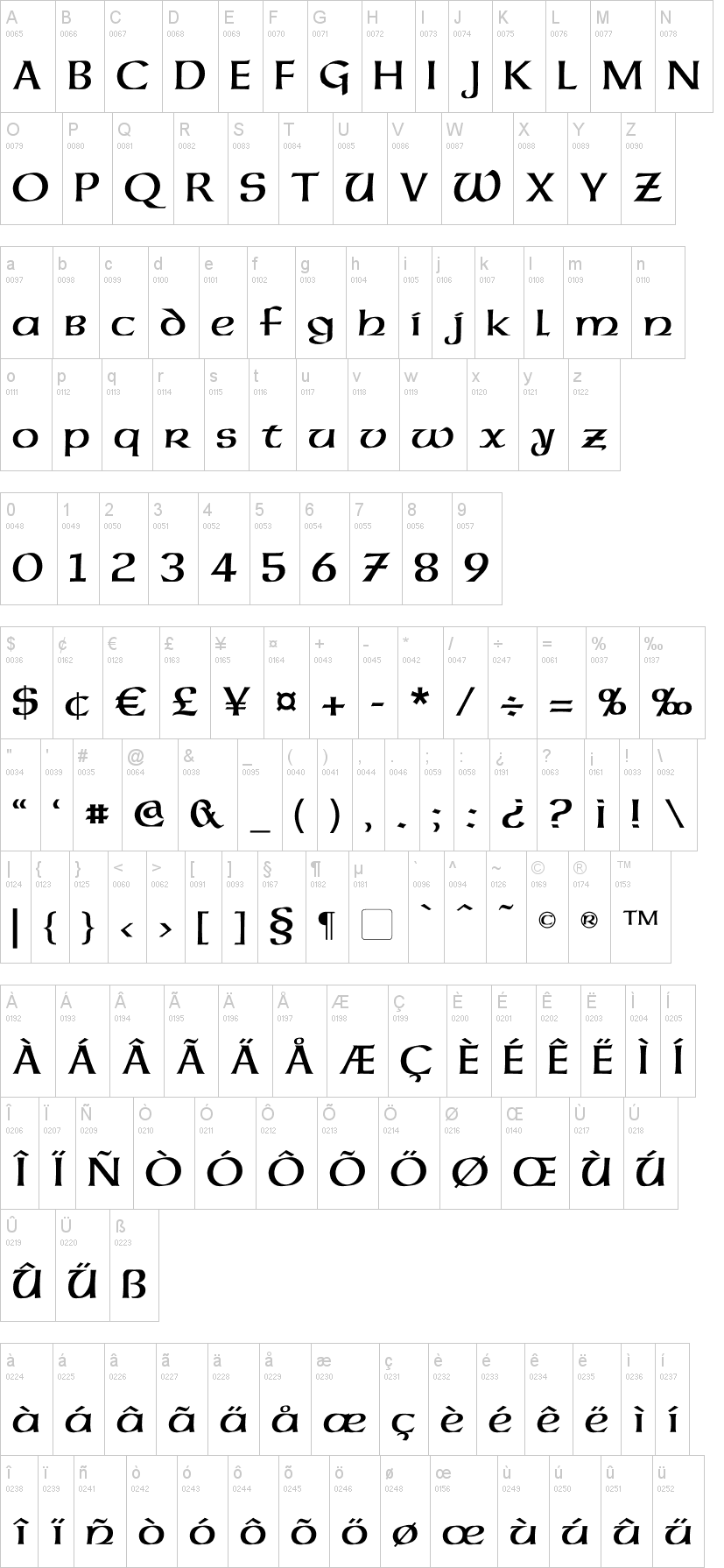
Dalelands Uncial Italic.otfDalelands Uncial Bold.otfDalelands Uncial Bold Italic.otfDalelands Uncial Condensed.otfDalelands Uncial Condensed Italic.otfDalelands Uncial Condensed Bold.otfDalelands Uncial Condensed Bold Italic.otfNote of the authorDalelands Uncial is a faux-Celtic typeface loosely based on some of the Forgotten Realms guides from TSR, Inc. Includes full alphabet, numerals, extended punctuation, and Euro. Includes regular, bold, italic, bold-italic, and condensed weights.